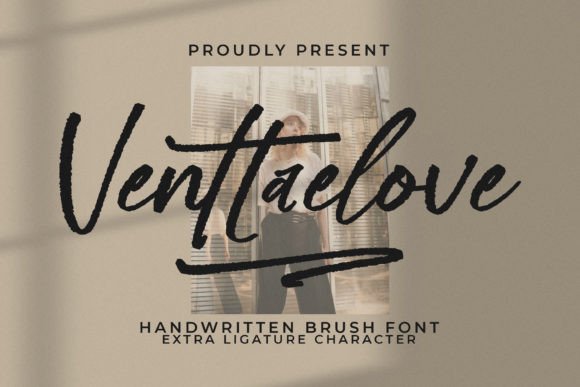
Unleash the Allure of Venttaelove: A Handcrafted Script Font for Refined Elegance
Embark on a journey of visual artistry with Venttaelove, the captivating script font that will leave you breathless. Designed with meticulous attention to detail by the talented artists at Integritype Studio, Venttaelove is not just a font; it's a work of art that brings your creative visions to life.
Indulge in the beauty of Venttaelove, a font that dances across the page with its graceful strokes and enchanting curves. Each letter is lovingly crafted to evoke a sense of timeless elegance, capturing the essence of handwritten artistry in a digital format.
With Venttaelove, you'll unlock a world of possibilities for your creative projects. Whether you're a seasoned designer or just starting out, this versatile font will elevate your designs to new heights. It's perfect for logos, branding projects, homewares designs, product packaging, mugs, quotes, posters, shopping bags, t-shirts, book covers, business cards, invitation cards, greeting cards, labels, photography, watermarks, special events, and any project that demands a touch of sophistication.
Immerse yourself in the limitless creative possibilities of Venttaelove. Its beauty lies in its versatility, allowing you to effortlessly create designs that resonate with your audience and leave a lasting impression. Whether you're aiming for a classic, timeless look or a modern, edgy aesthetic, Venttaelove will seamlessly adapt to your vision.